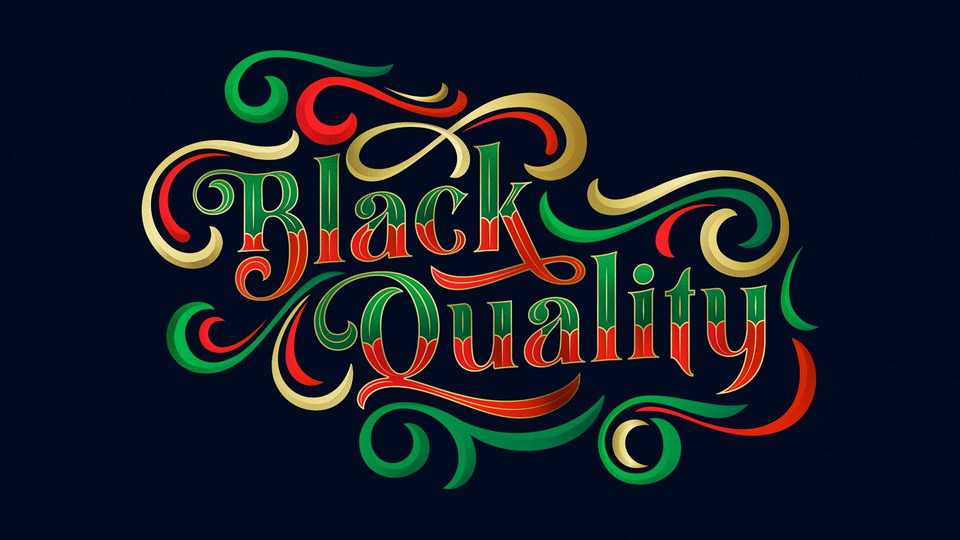
Download Black Quality font, an elegant and certainly cool blacketter style typeface. Black Quality is perfect for Victorian, classic, elegant and vintage designs. This font is very well used for design wine, vodka packaging, beer logo, tattoo studio, and others.